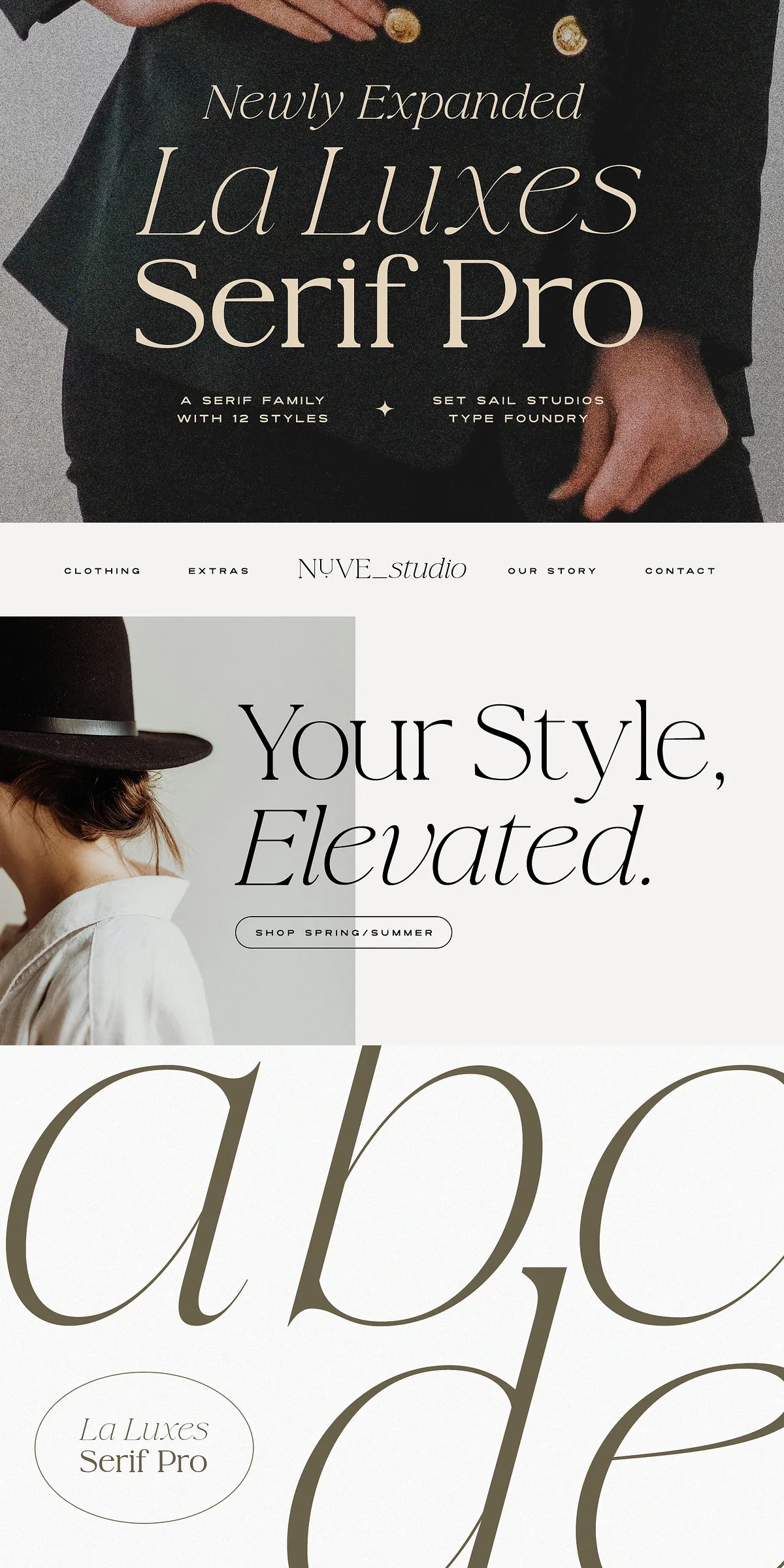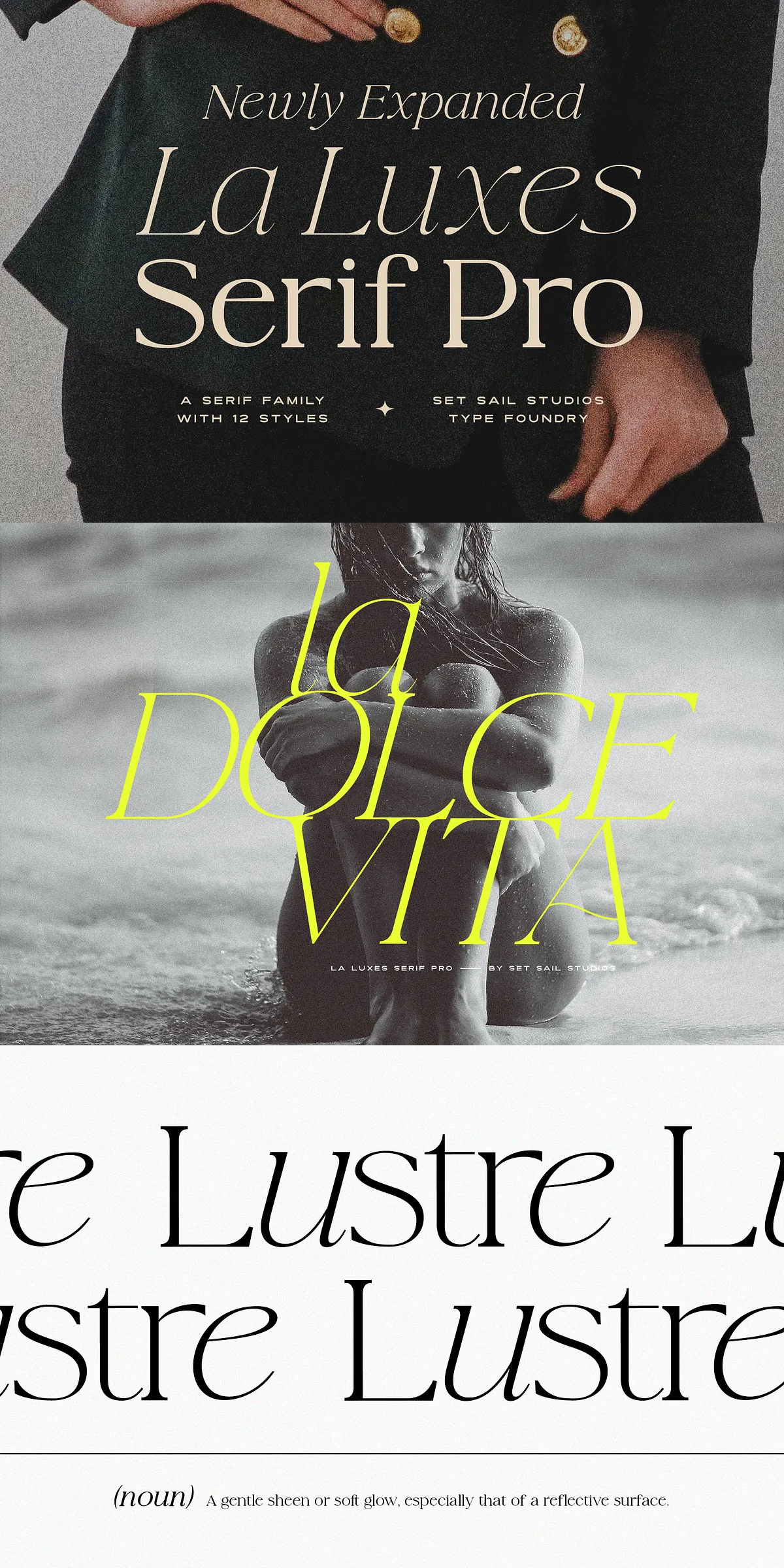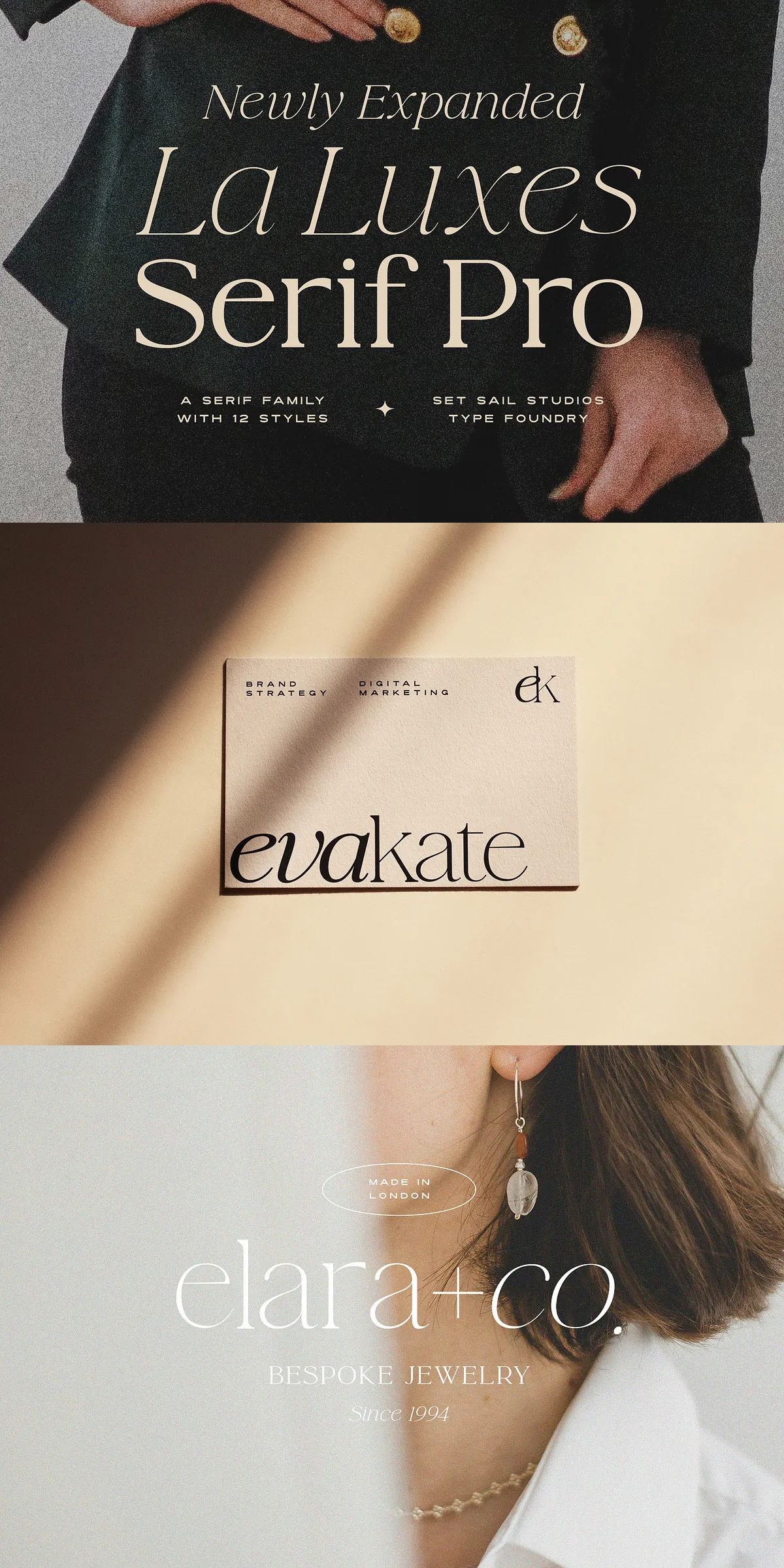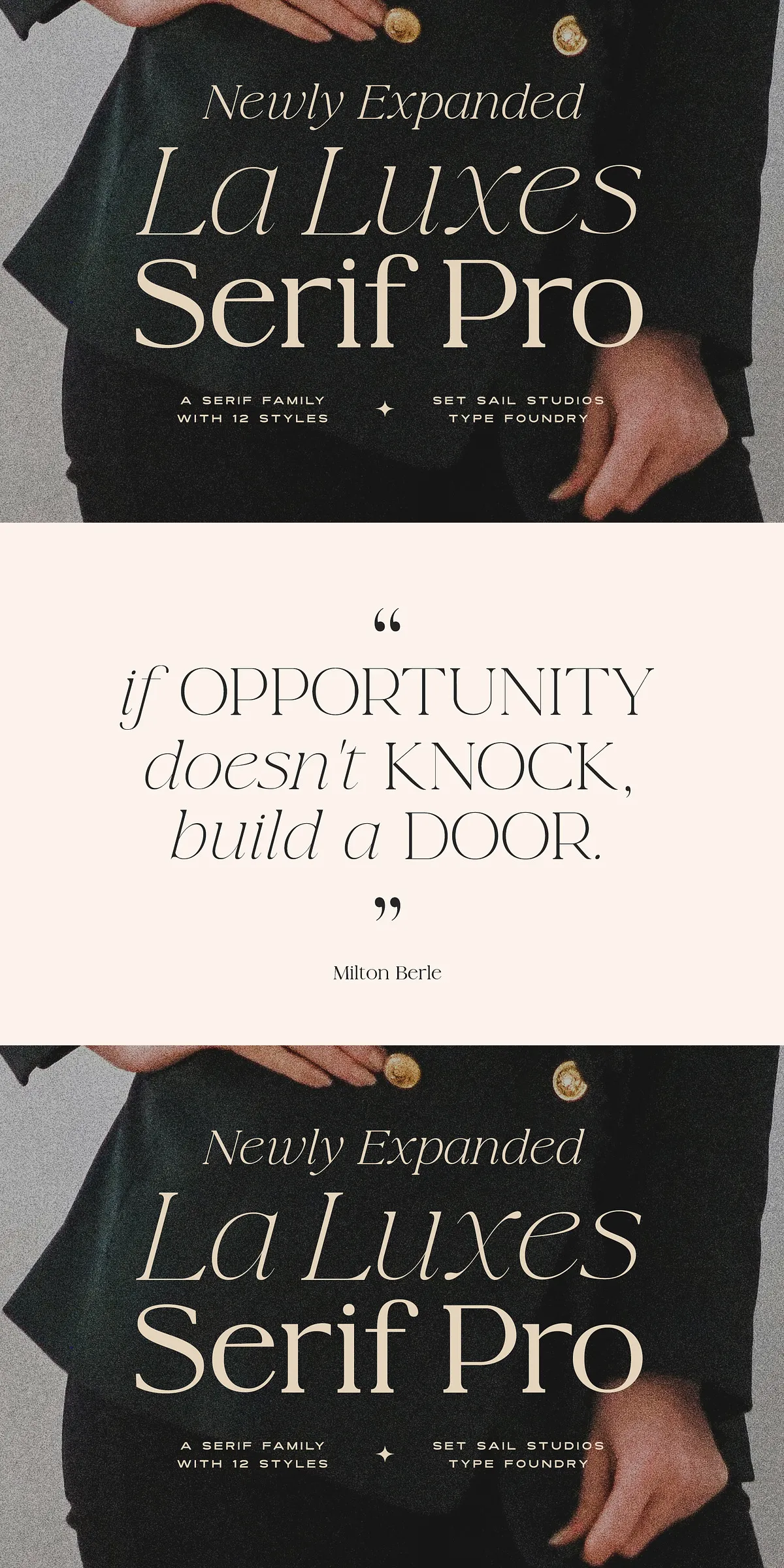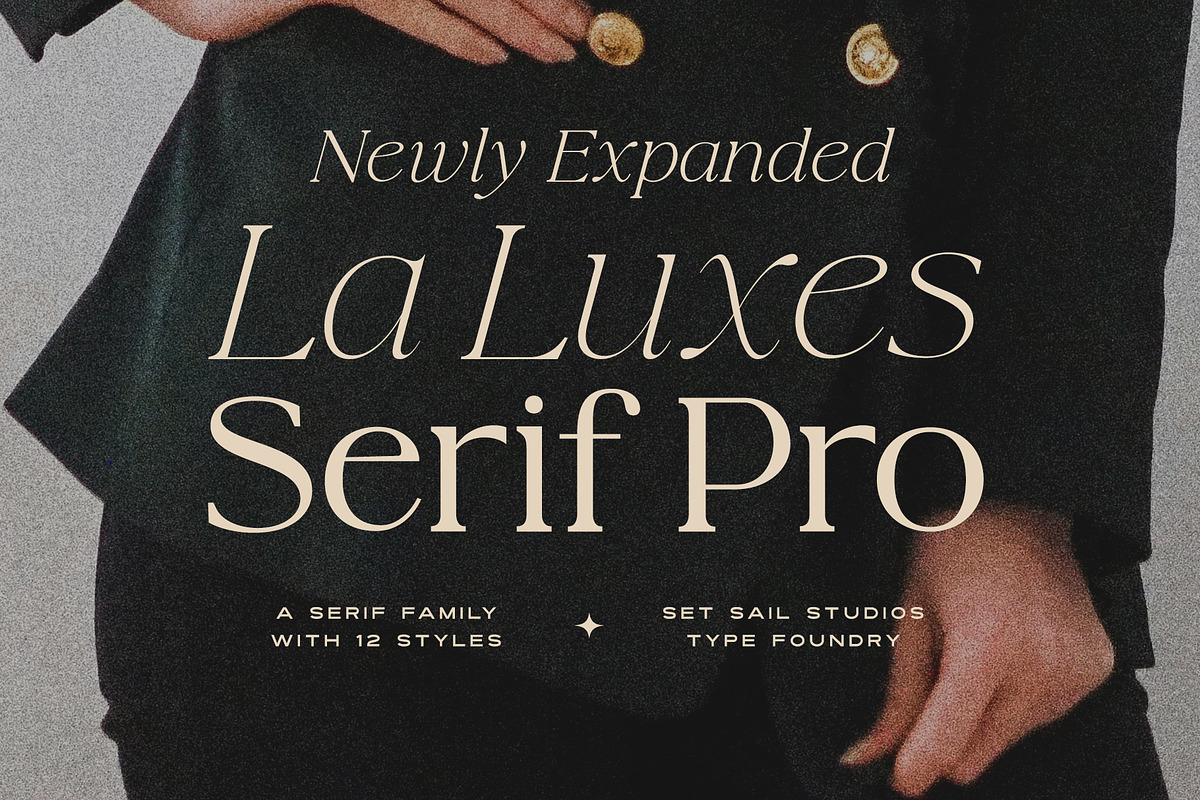
Introducing La Luxes Serif Pro — the most powerful evolution of our best-selling serif masterpiece. This isn’t just an update; it’s a total reimagining of what a serif typeface can achieve. With a complete family of 12 meticulously crafted fonts — six robust weights, each available in a matching italic variation — La Luxes Serif Pro gives you unmatched freedom to shape tone, hierarchy, and emotion in every project.
Why La Luxes Serif Pro Is a Game-Changer in Design
Designers who loved the original La Luxes Serif now have even greater control. Each weight — from delicate Light to commanding Black — has been refined for precision, balance, and visual impact. Whether you’re crafting a luxury brand identity, a high-end magazine spread, or a bold website hero section, La Luxes Serif Pro delivers the sophistication and presence your vision demands.
But true power lies in the details. Every font in the family boasts an extensive set of ligatures and special characters. From elegant double-letter pairings that refine readability to ornate typographic flourishes, these features allow your text to breathe with authenticity and artistry.
Unlock Advanced Typographic Features with Ease
Built for Global Creativity: Full Multilingual Support
La Luxes Serif Pro isn’t just beautiful — it’s inclusive. Designed for international projects, it supports a wide range of languages including English, French, Italian, Spanish, Portuguese, German, Swedish, Norwegian, Danish, Dutch, Finnish, Indonesian, Malay, Hungarian, Polish, Turkish, and Slovenian. Your brand can now speak clearly and elegantly to audiences around the world.
What’s Included in the La Luxes Serif Pro Family?
- 12 Fonts Total: 6 weights (Light, Regular, Medium, Semi-Bold, Bold, Black), each with a matching italic.
- 80+ Ligatures: Custom-designed double-letter sequences that elevate typography from good to exceptional.
- 60+ Stylistic Alternates: Including small caps, swash forms, and unique character variations for personalization.
- OpenType Features: Full access to ligatures, alternates, stylistic sets, and contextual substitutions.
Where La Luxes Serif Pro Shines
This font family thrives in environments where elegance meets impact:
- Luxury Branding & Logotypes: Create unforgettable identities for high-end fashion, cosmetics, and premium services.
- Editorial Design & Magazines: Set the tone with captivating headlines, pull quotes, and chapter titles.
- Website Headers & Hero Texts: Command attention on landing pages and digital campaigns with premium typography.
- Event Posters & Invitations: Perfect for weddings, galas, art exhibitions, and upscale events.
- Print & Packaging Design: Add luxury to labels, business cards, and product boxes with a typographic voice that commands respect.
Pro Tips for Maximum Creative Impact
- Use the Light Italic for subtle elegance in body copy or pull quotes.
- Pair Bold + Black weights for dramatic contrast in headlines and display typography.
- Enable ligatures in long-form layouts to enhance rhythm and readability.
Final Verdict: This Is Not Just a Font — It’s Your Design Superpower
La Luxes Serif Pro is more than an upgrade. It’s a complete typographic ecosystem built for creators who demand excellence. From the first click to the final print, it empowers you to design with confidence, authority, and artistic flair.